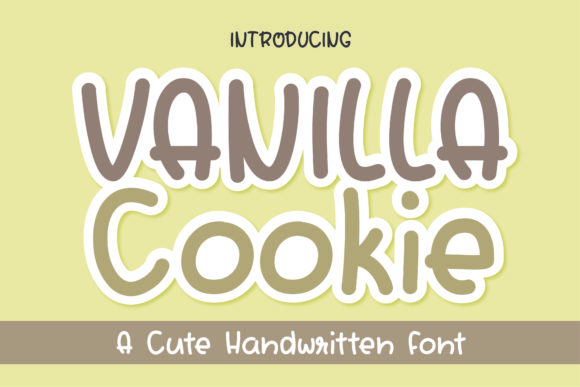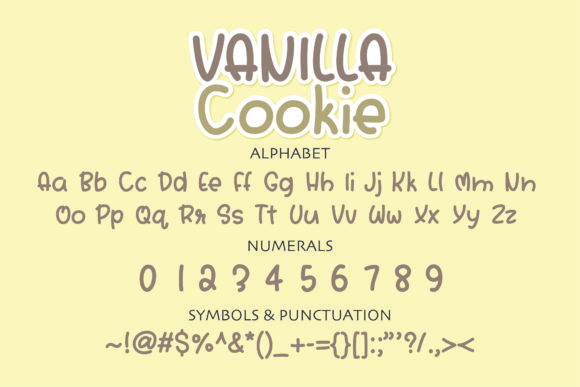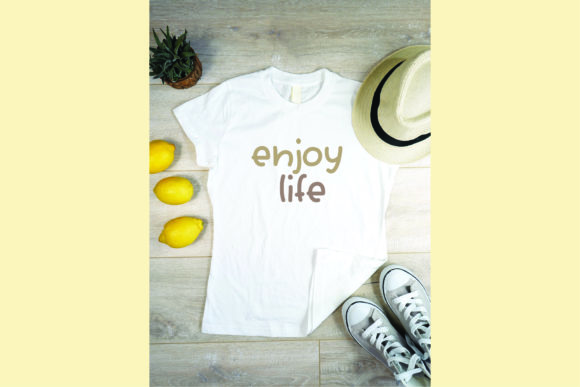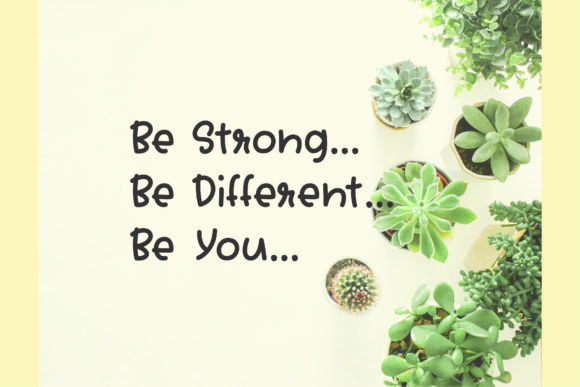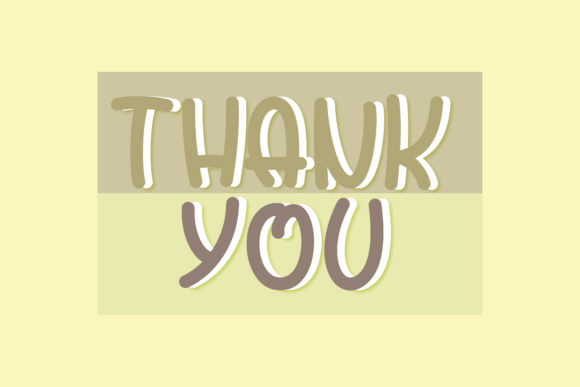
Vanilla Cookie Font
About Vanilla Cookie Font
Vanilla Cookie is a cute and simple lettered handwritten font that can be used for all chalkboard quotes or teaching material! Its authentic look will add a personal and realistic feel to your designs.